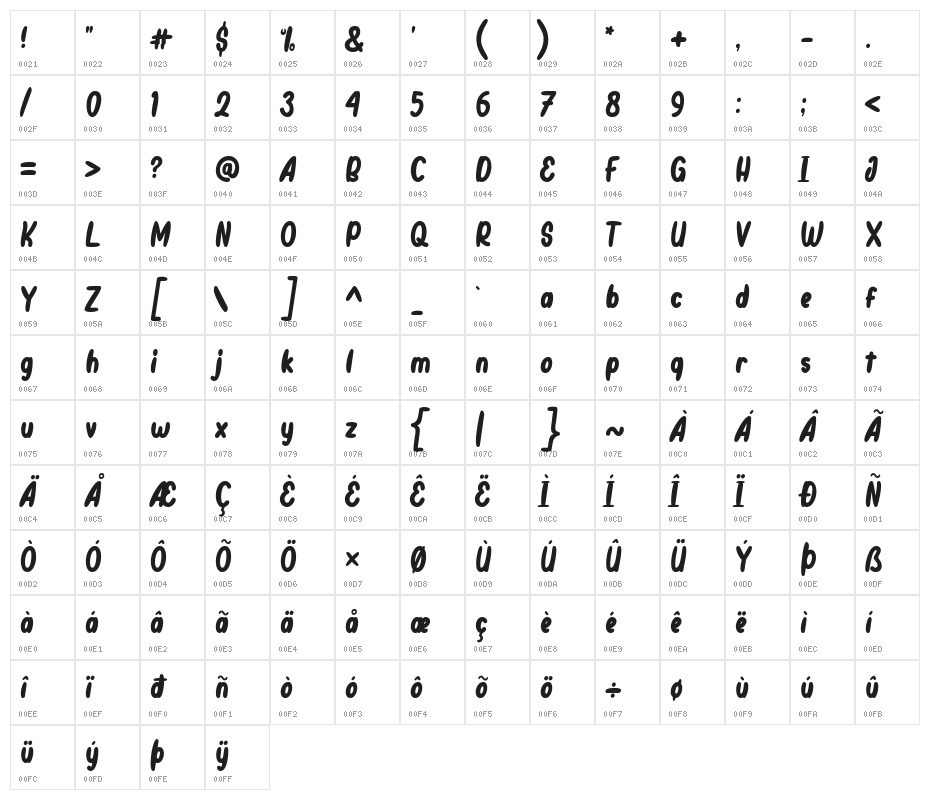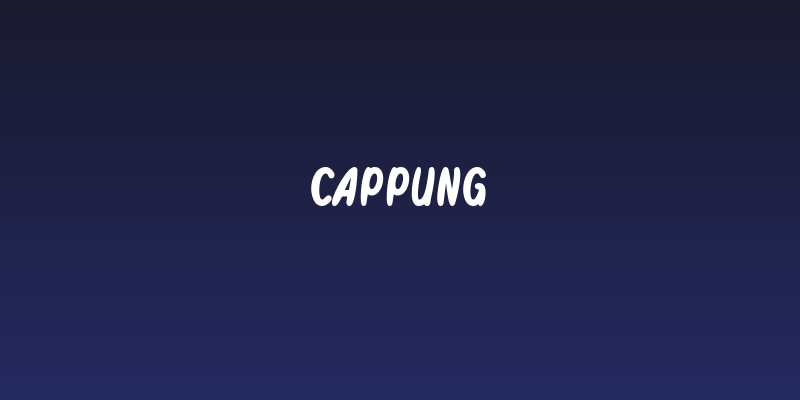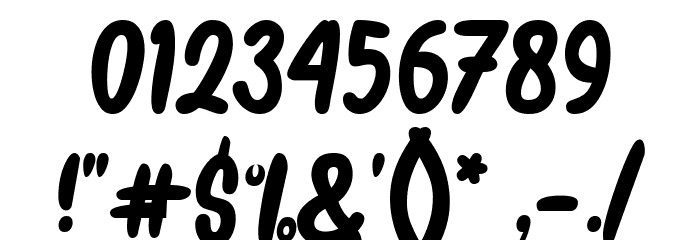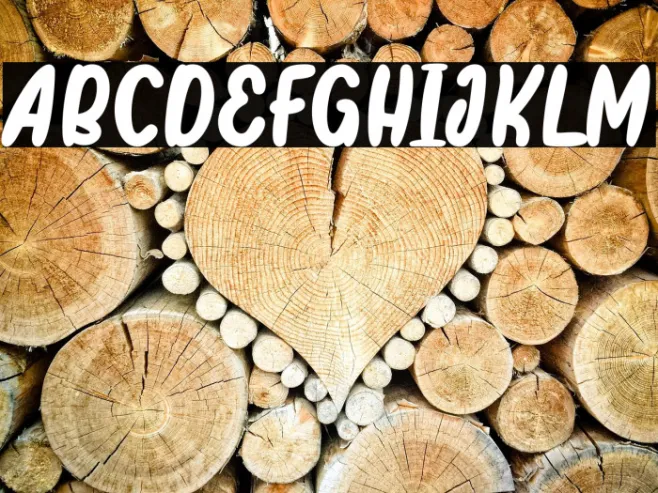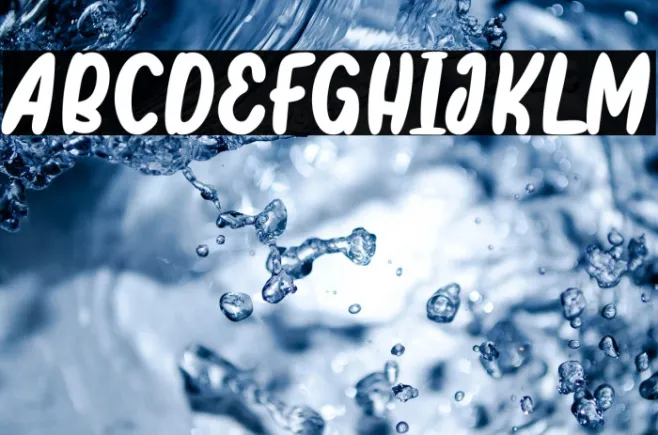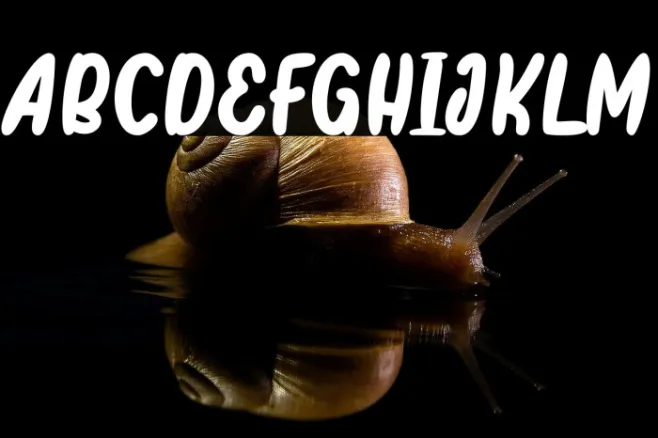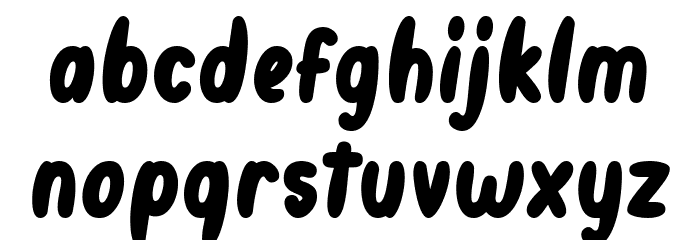
Cappung Font
Cappung Description
This font features a bold and playful style with rounded edges and a handwritten appearance. The letters are slightly slanted, giving a dynamic and energetic feel. The uppercase and lowercase characters maintain a consistent weight, contributing to a cohesive look. Numbers and special characters are designed to match the playful aesthetic, making them suitable for informal and creative projects. The strokes are thick, providing a strong presence on the page, while the rounded forms add a friendly and approachable touch.
| Use Case | Logos, Posters, Greeting Cards |
| Proposed Projects | Ideal for children's books, playful branding, greeting cards, and informal posters. |